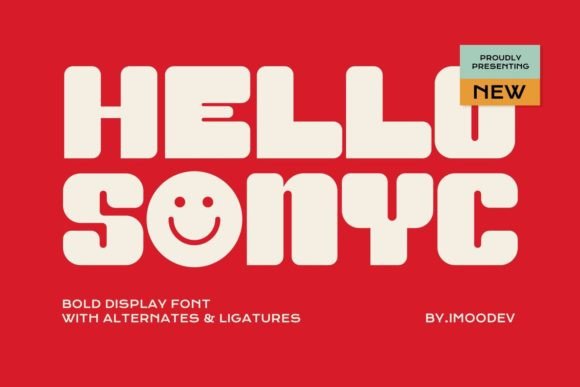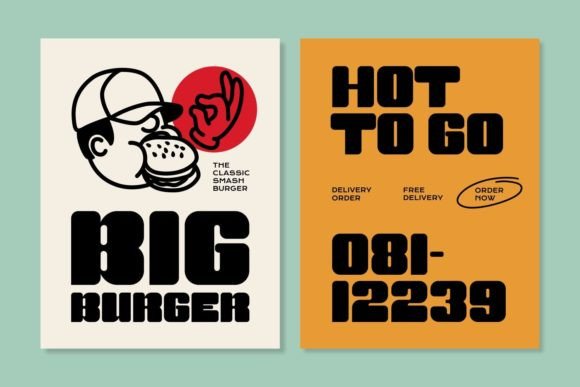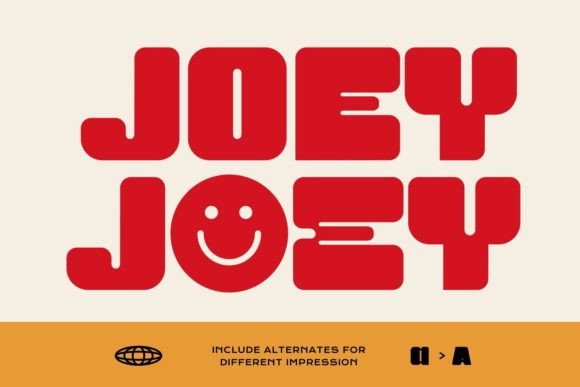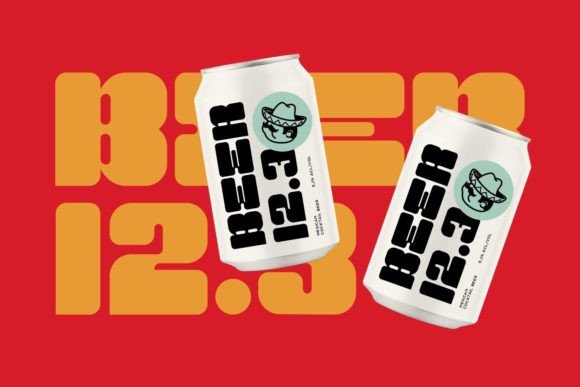
Hello Sonyc Font
About the Hello Sonyc Font
The wait is over! The incredible Hello Sonyc Font is now available for your design toolkit. Hello Sonyc is a fun font with visual elegance, smooth curves, and beautiful ligatures, making your work look true and attractive.
A versatile font that works in both large and small sizes. This font is suitable for a wide variety of projects such as logos, invitations, branding, magazine, photography, card, product packaging, product mockup, mugs, quotes, posters, labels, signatures, editorials, websites, art deco, social media, and much more.
Hello Sonyc Font Usage Examples
Hello Sonyc Font Example